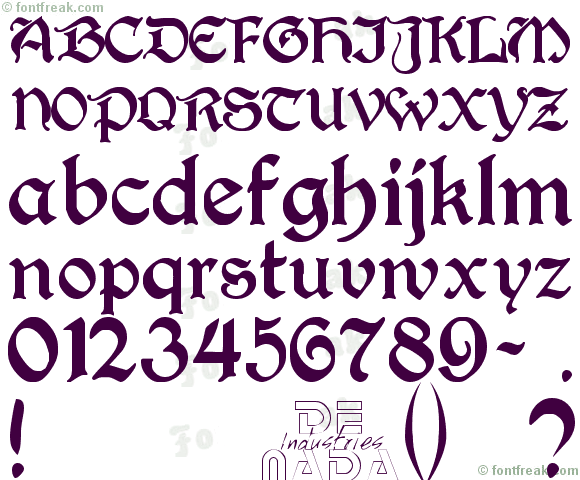
About Perry Gothic
Perry Gothic, designed by Mike Allard, is a distinctive display font that falls under the gothic category. This font showcases a unique blend of modern aesthetics and traditional gothic characteristics, making it an intriguing choice for various design projects. The font features a balanced stroke weight that creates a harmonious appearance, while its clean lines and sharp angles contribute to a contemporary feel. The generous spacing between characters enhances readability, making it suitable for both headlines and body text.
The Perry Gothic font is particularly well-suited for use in eye-catching applications such as movie posters, where bold and striking typography is essential. Its modern gothic style also makes it an excellent choice for branding purposes, especially for businesses looking to convey a sense of sophistication and creativity. Additionally, this font can elevate restaurant menus, giving them a refined and stylish look that captures the essence of the dining experience. Wedding invitations that require a touch of elegance will also benefit from the unique flair that Perry Gothic brings to the table.
What truly sets the Perry Gothic font apart is its ability to fuse classic gothic elements with modern design sensibilities. This unique combination allows it to stand out in a crowded field of fonts, making it a memorable choice for anyone looking to make a statement. If you're in search of a font that offers both style and functionality, the Perry Gothic font free download is an excellent option to consider for your next project.